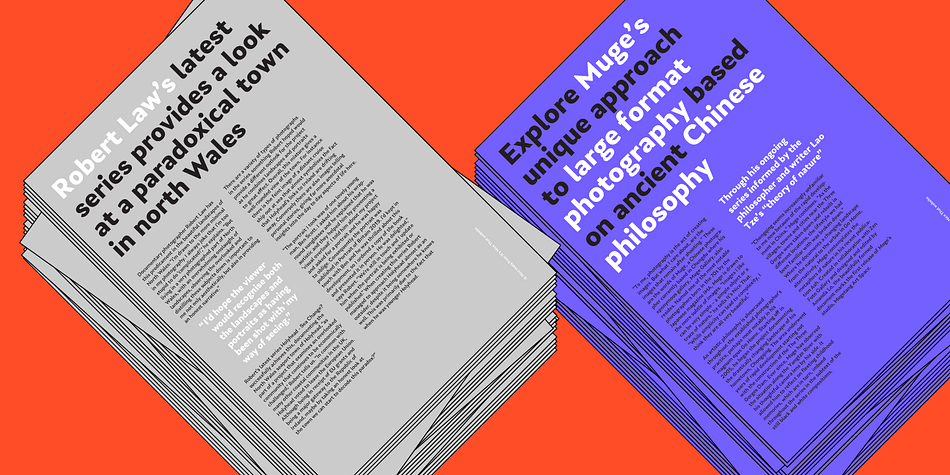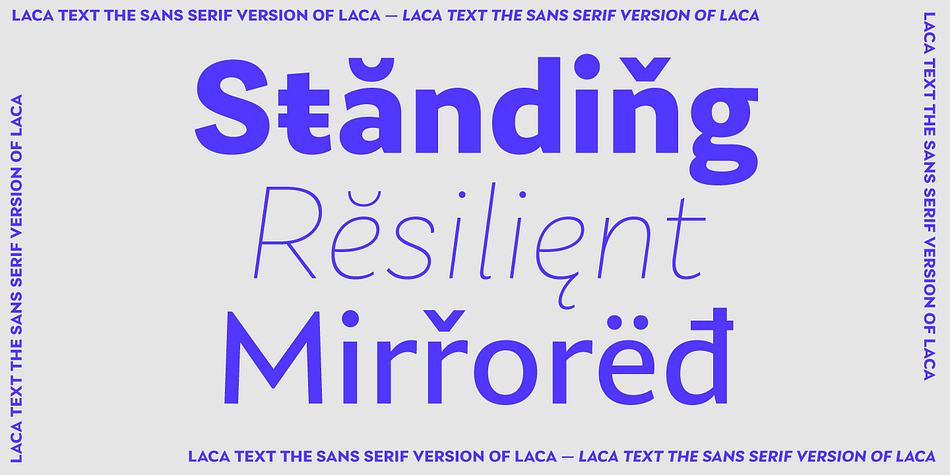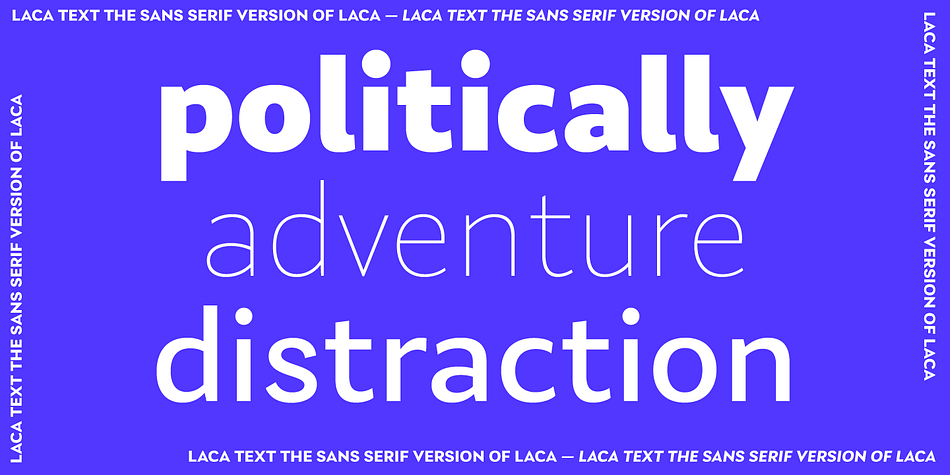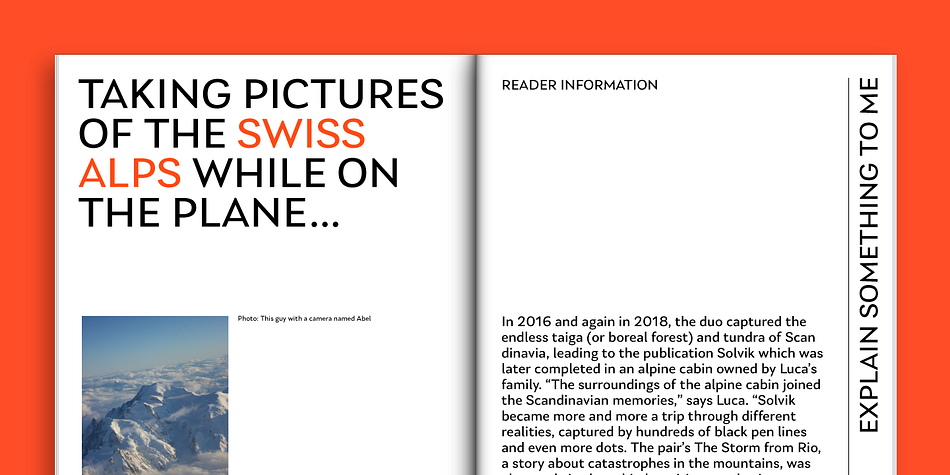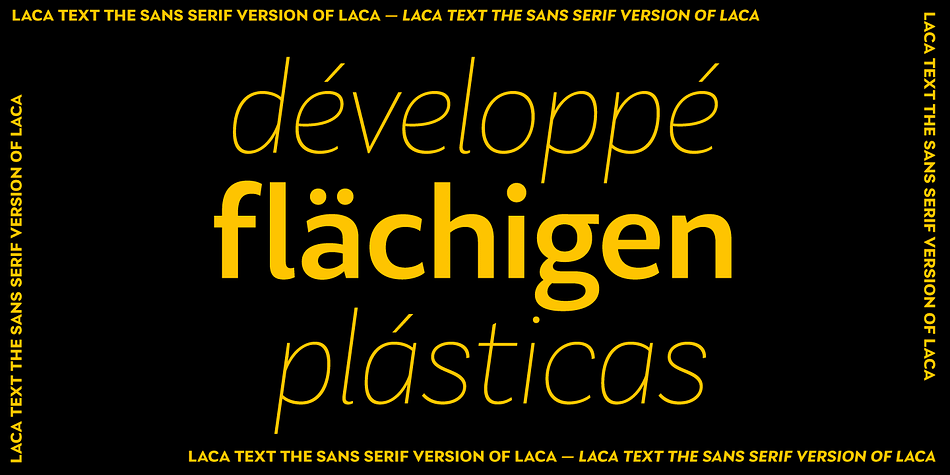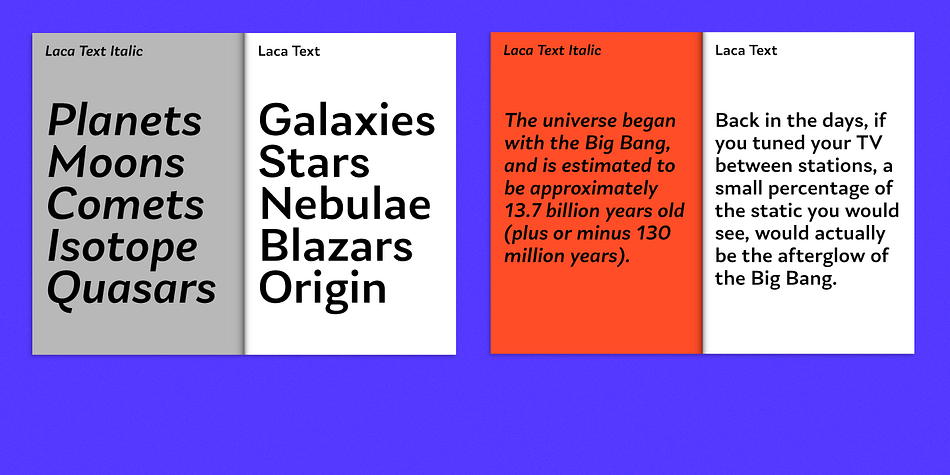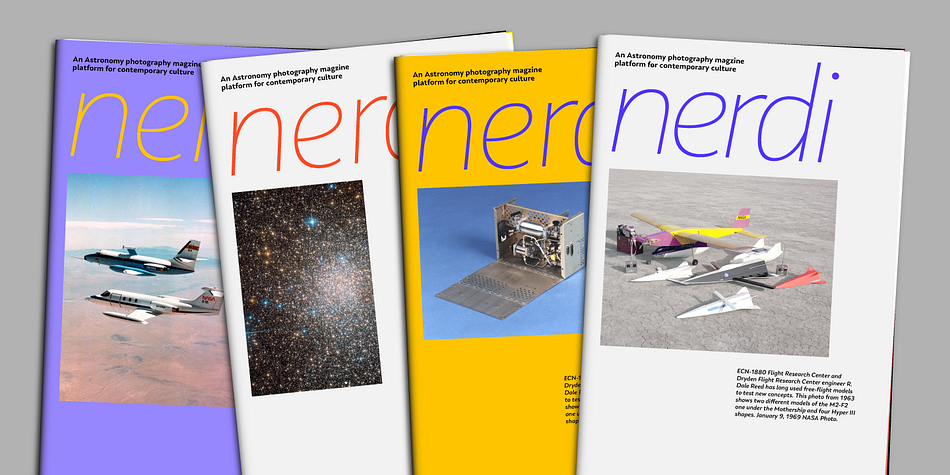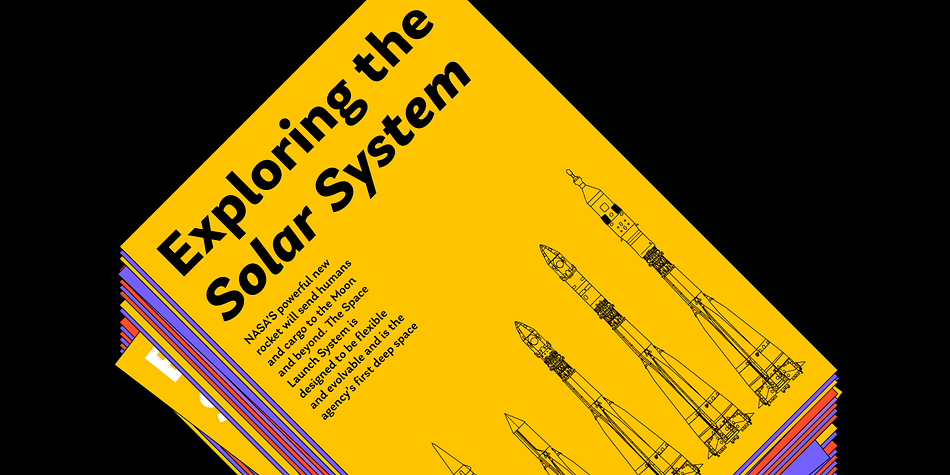
Designed by Joana Correia, Laca Text is a sans serif font family. This typeface has sixteen styles and was published by Nova Type Foundry.
Laca Text is a sans serif version of Laca. It was designed starting from the shapes of Laca. It is a cleaner version of Laca. Laca Text has characteristics like a bigger x-height, open counters, smaller ascenders. It works better in smaller text than Laca, because it keeps the structure without the stylistic features of Laca. Laca Text has more straight lines and follows the round shapes of Laca. Laca Text has true italics that are a bit quieter than Laca. Laca Text as the name says it is more proper for long text but also identity and branding. Laca Text is versatile, and it pairs well with Laca but also stands out by as an independent style.
Foundry | Nova Type Foundry |
Designer | Joana Correia |